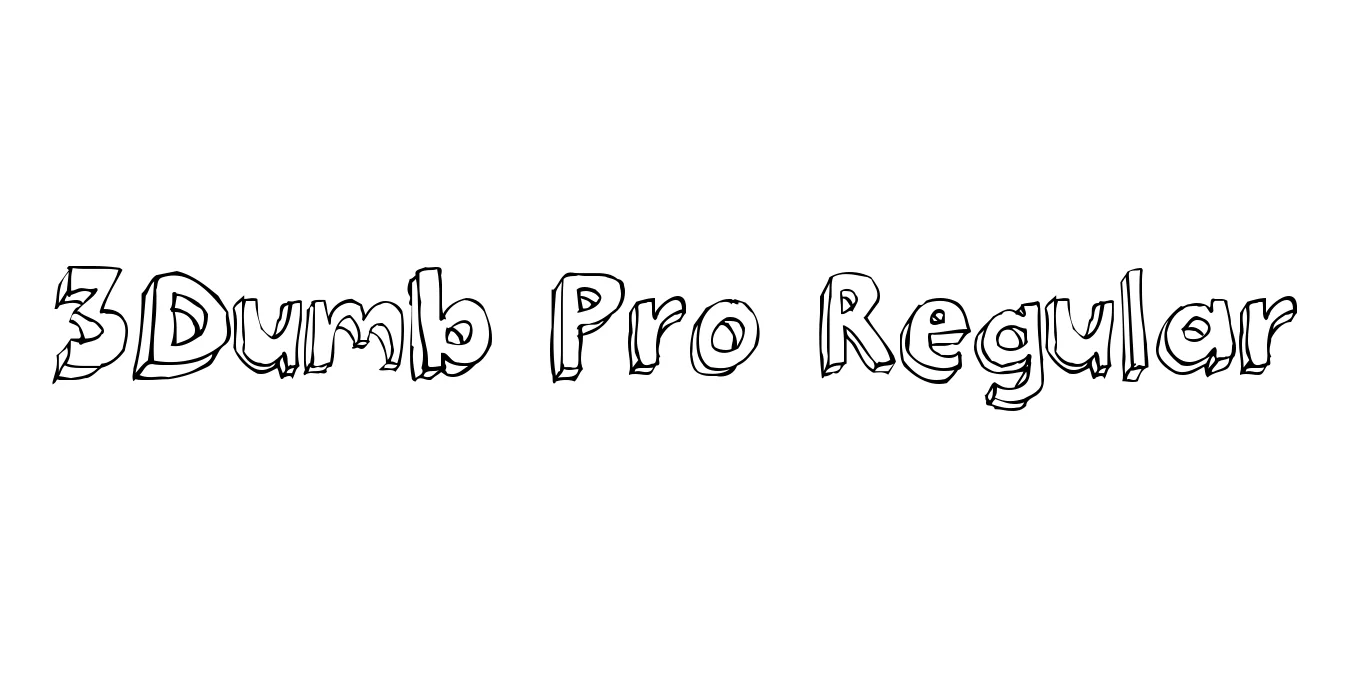
3Dumb Pro Regular
Designed by Ben Balvanz
| Font Name | 3Dumb Pro |
| Category | Display / 3D |
| Designer | Ben Balvanz |
3Dumb Pro Regular is a creative, hand-drawn three-dimensional display font designed by Ben Balvanz of Tepid Monkey. It originated as a playful sketch-style typeface, capturing the aesthetic of hand-drawn bubble letters with a distinct 3D shadow effect. The font is characterized by its informal, lo-fi charm, making it stand out in projects that require a casual yet bold visual presence that feels handcrafted rather than digitally perfect.
The Pro version expands upon the original release by offering a more complete character set and refined spacing for better readability in display settings. It is frequently paired with its companion font, 2Dumb, to create layered or contrasting effects in graphic layouts. Because of its unique handwritten outline and shadow, it is highly popular for school projects, comic-style designs, and quirky marketing materials that need a touch of human personality and depth.
3Dumb Pro Regular Best Uses
Ideal for posters and flyers that need a fun, three-dimensional look.
Perfect for student presentations and creative classroom materials.
Great for informal logos and child-friendly brand identities.
Works well for speech bubbles and action text in comic strips.